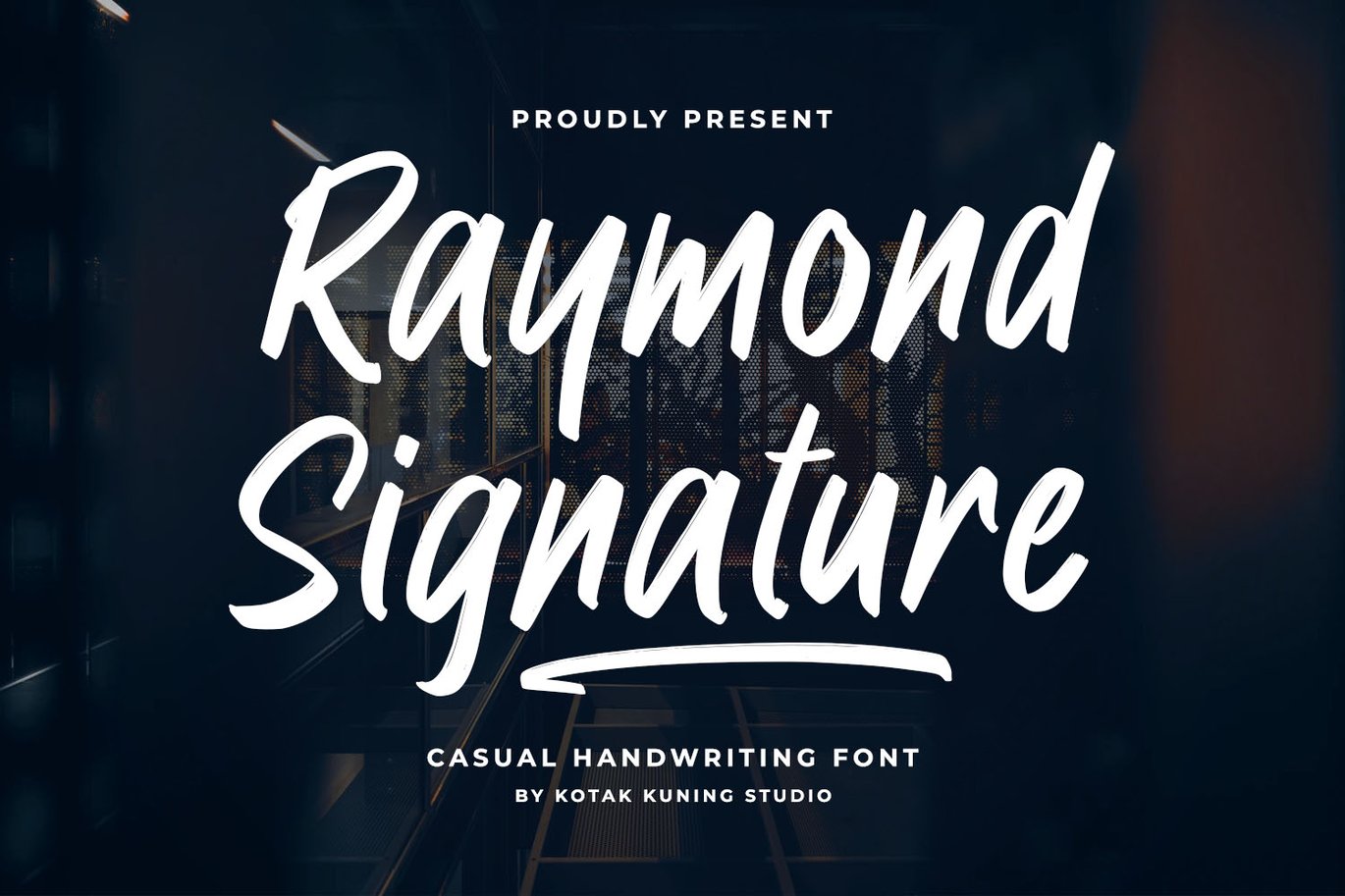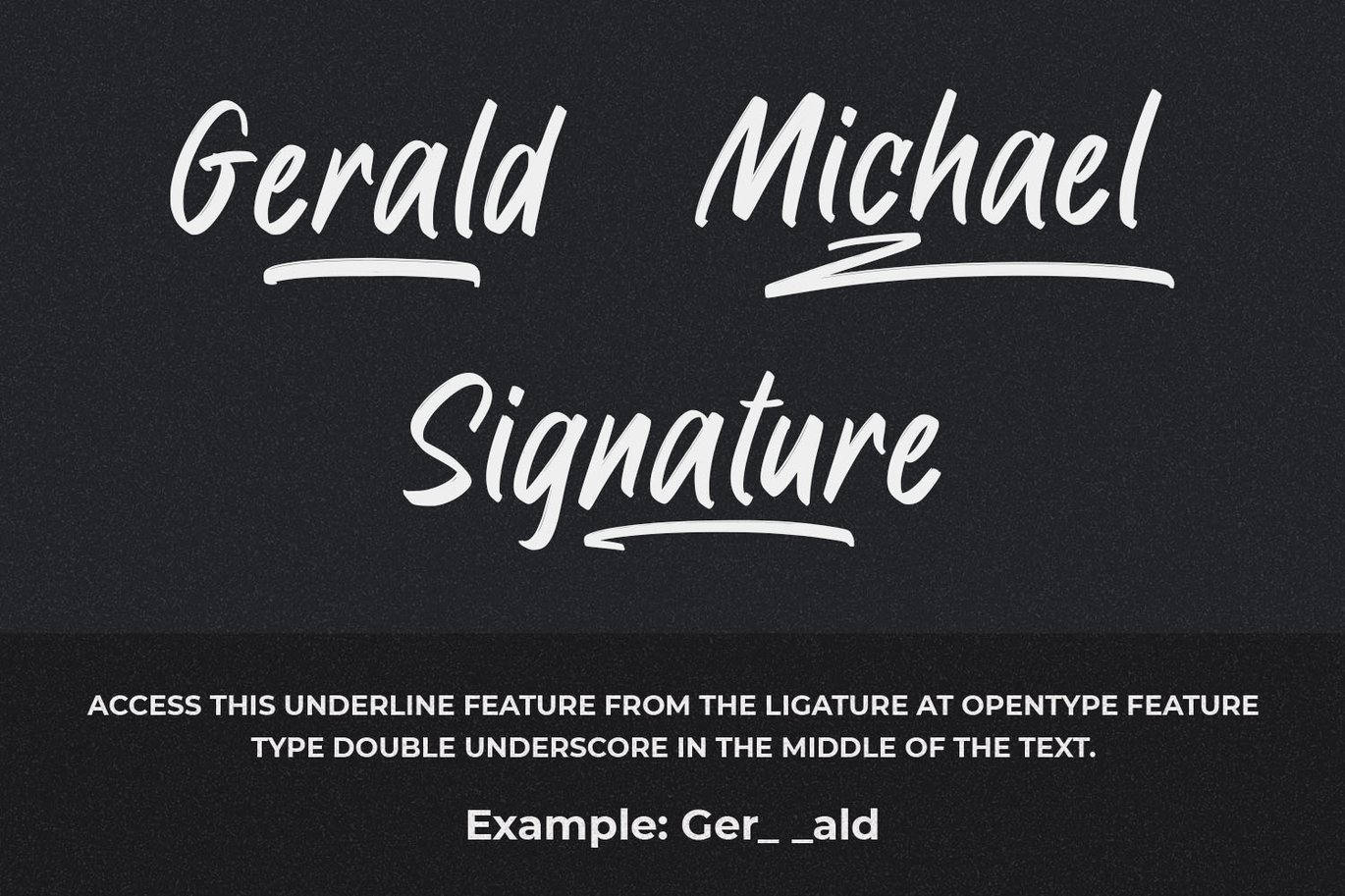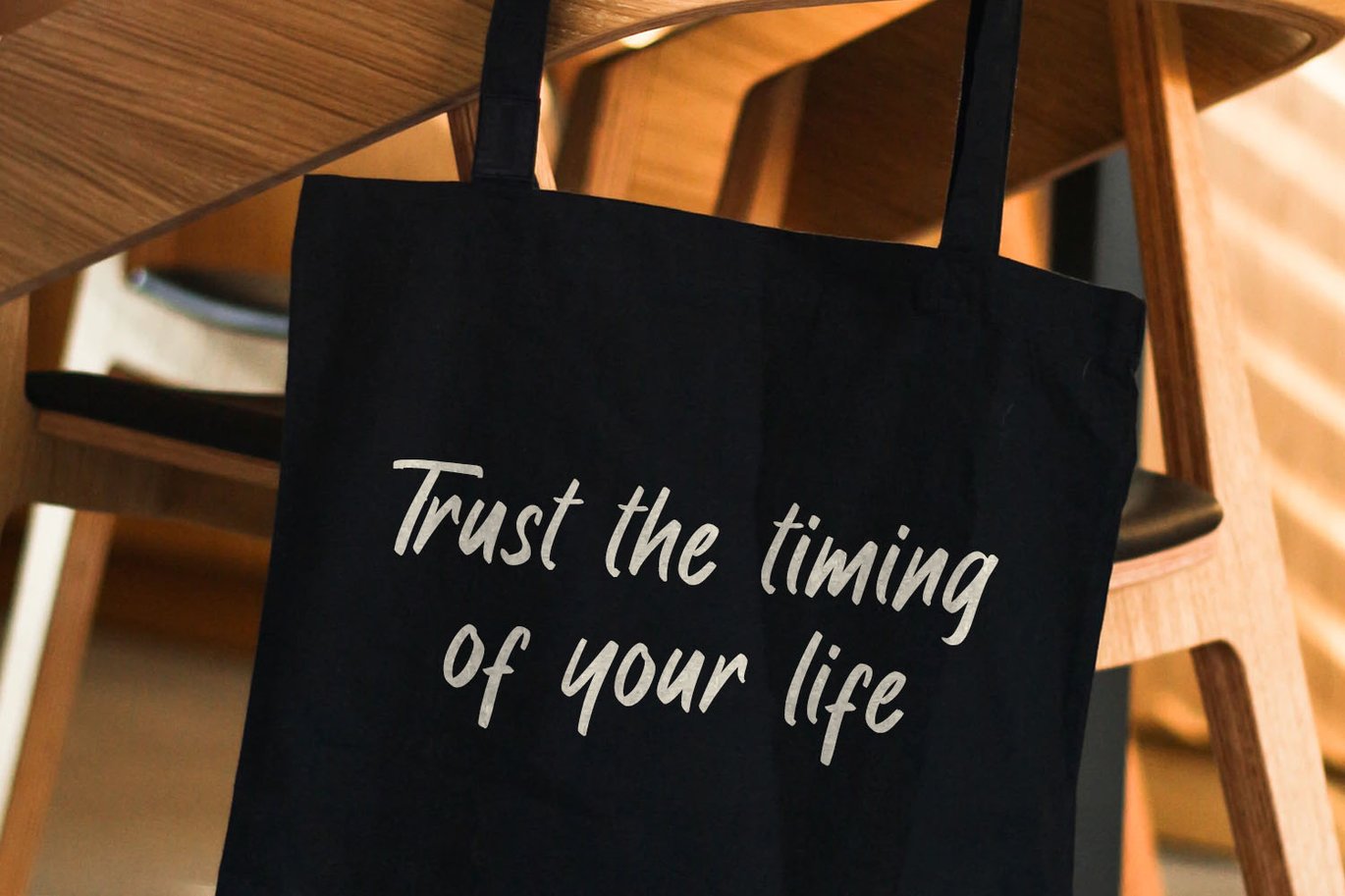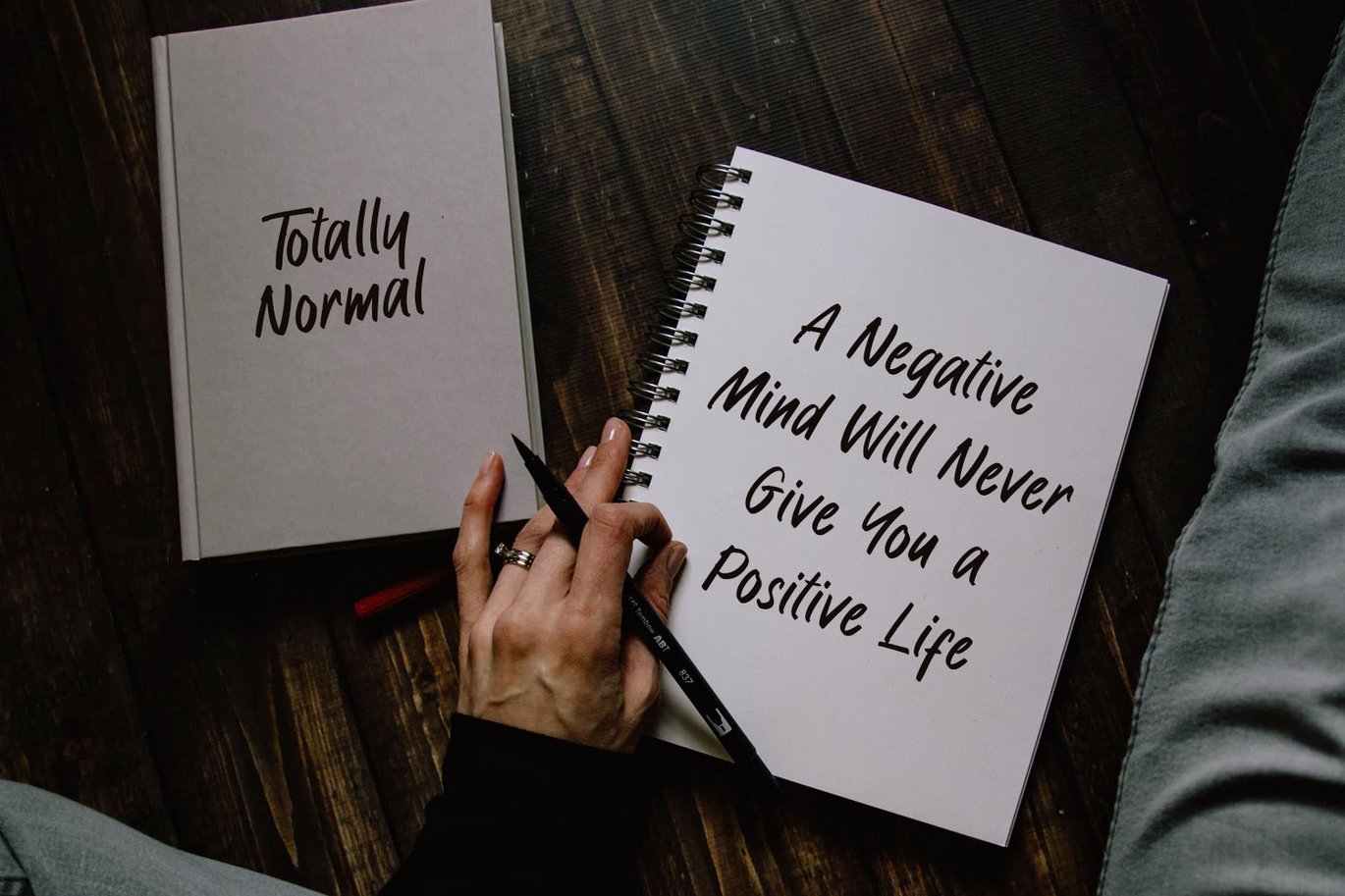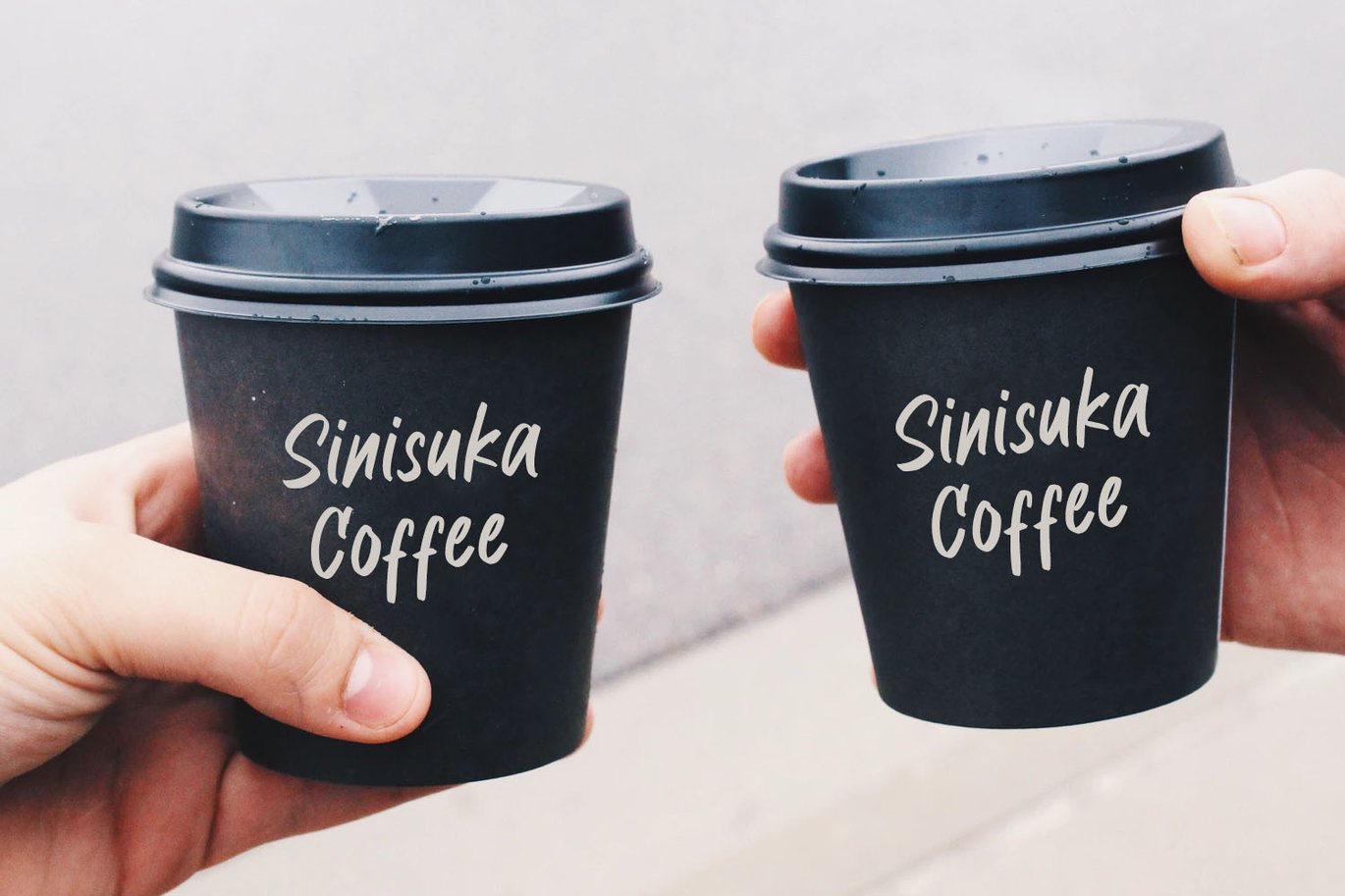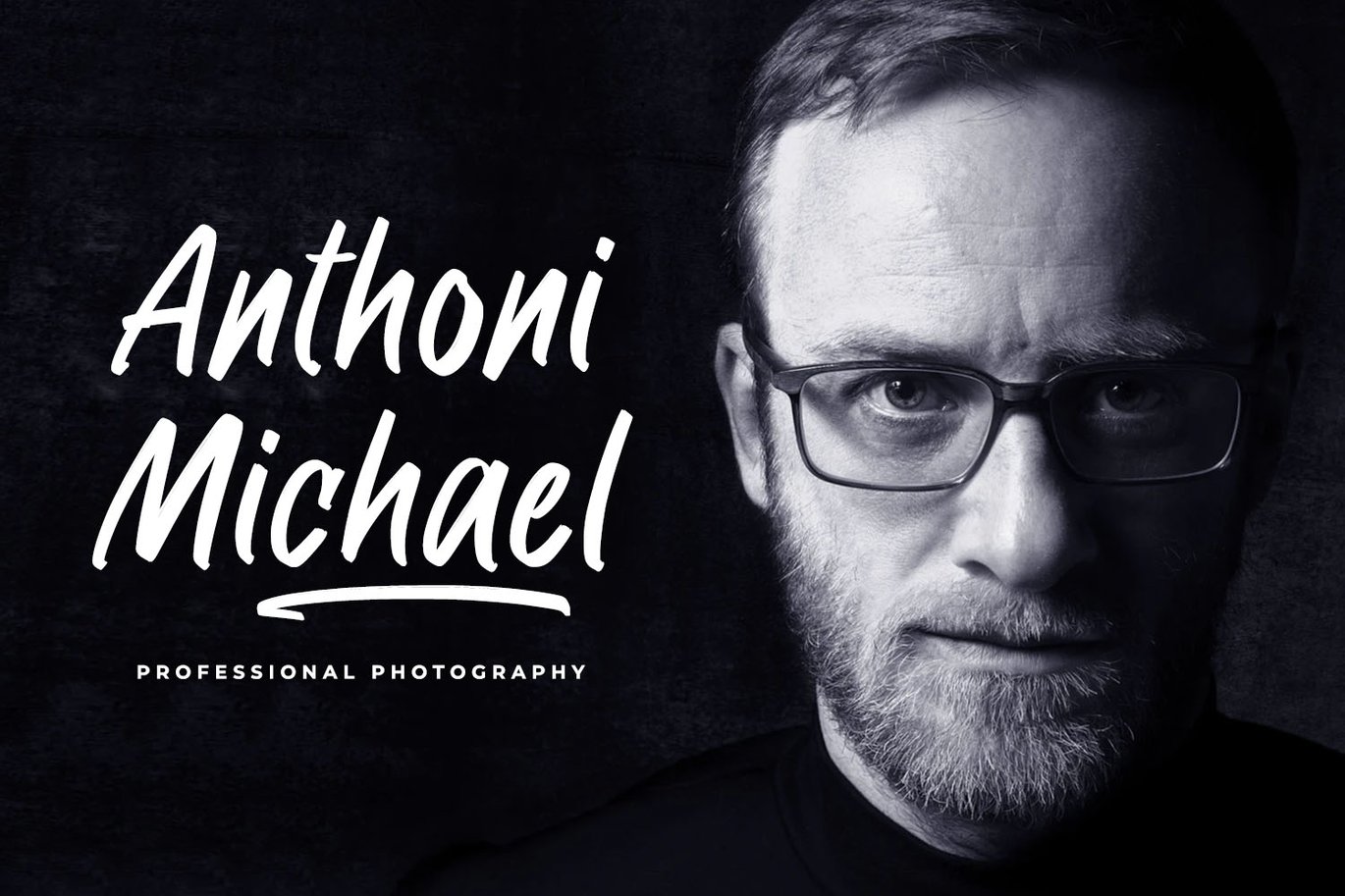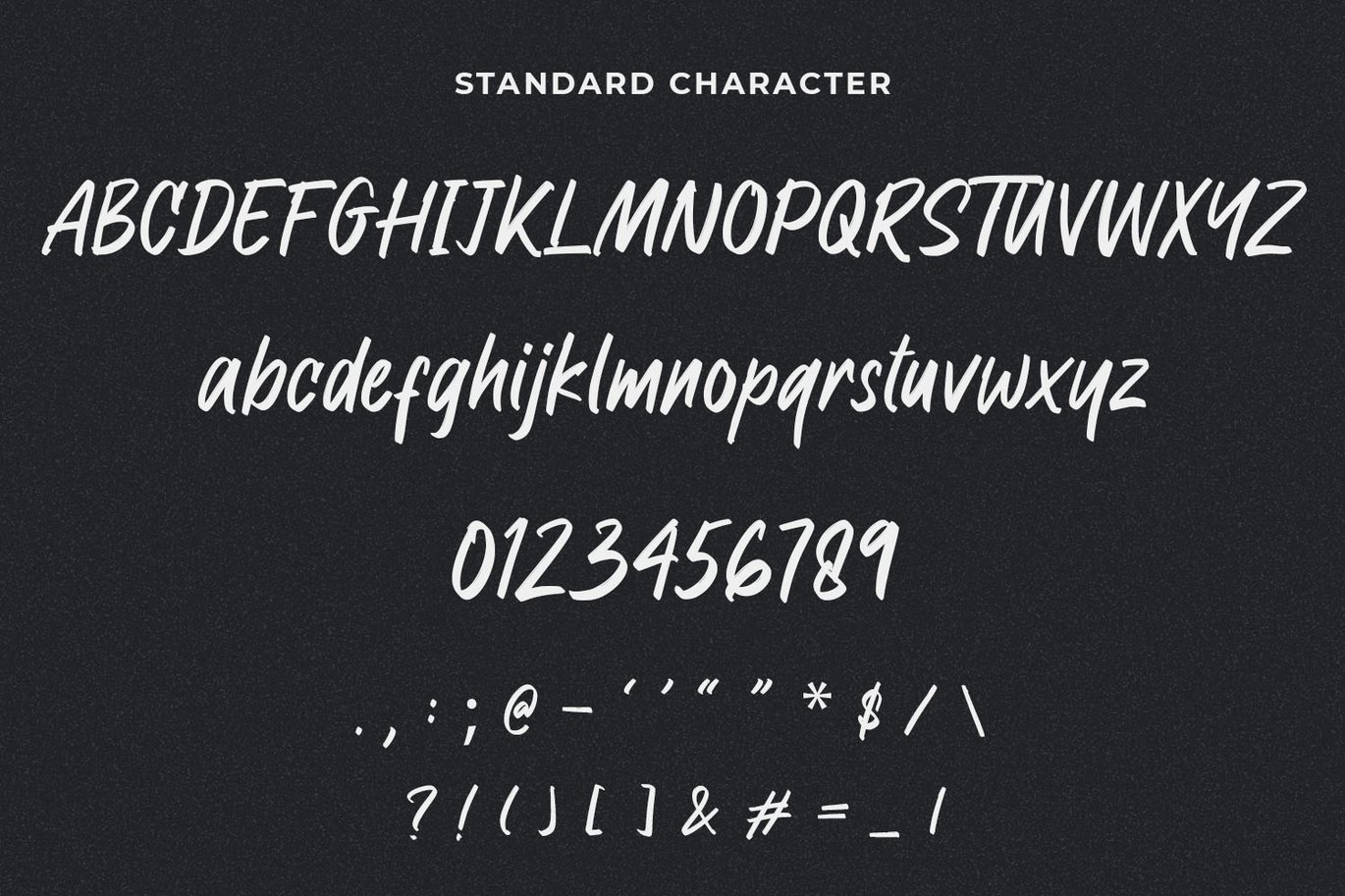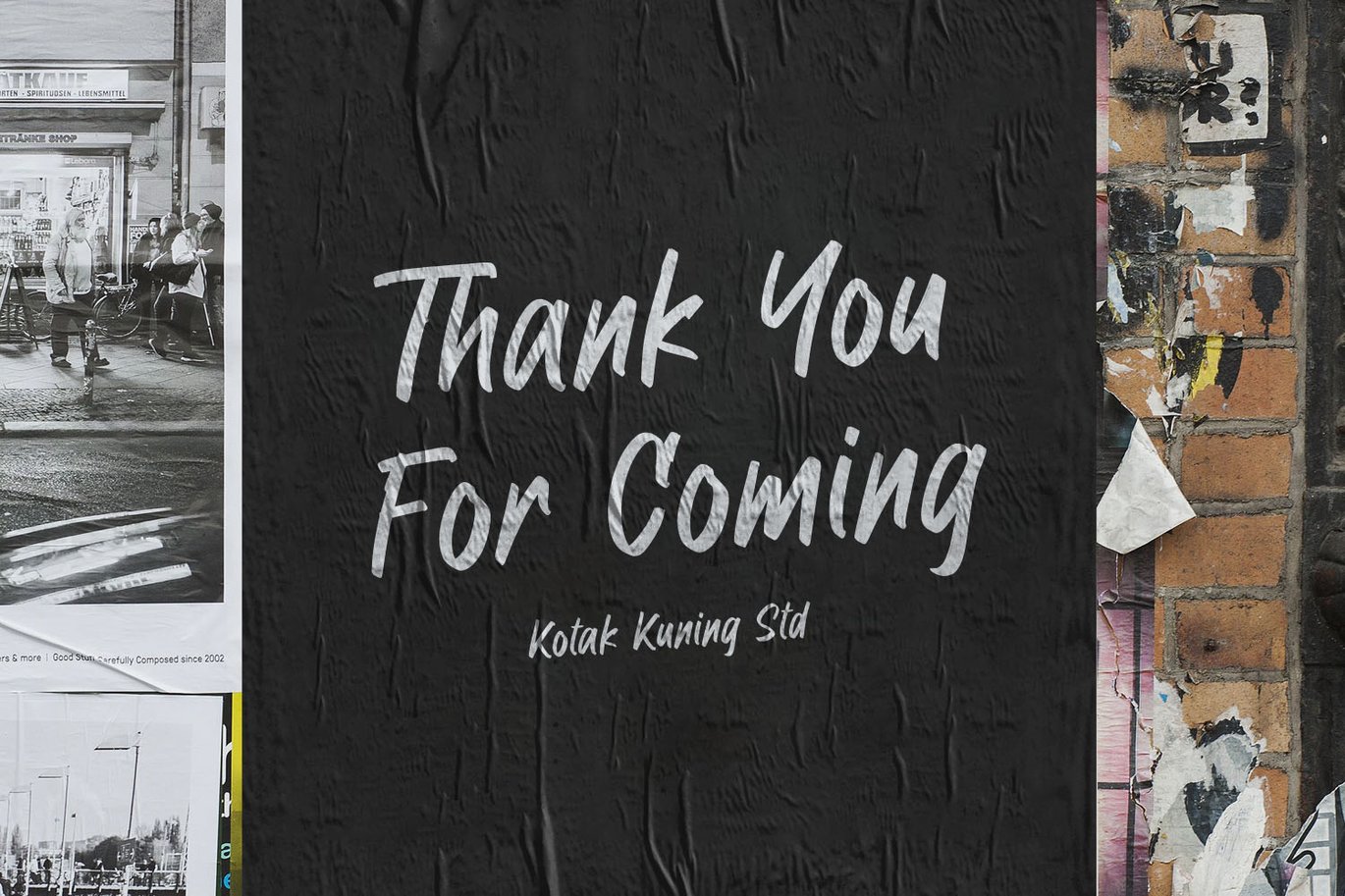
Raymond Signature Font
Raymond Signature Font is a casual display font, created by using a dry brush pen. This font is the perfect fit for all of your logos, branding, social media, and crafty DIY projects.
This font is suitable to use as a logotype, product designs, label, watermark, social media posts, apparel, invitation, signboard, sports club, motor/car, special events, or anything that needs handwriting taste.